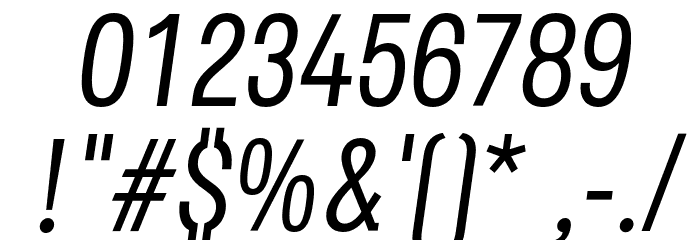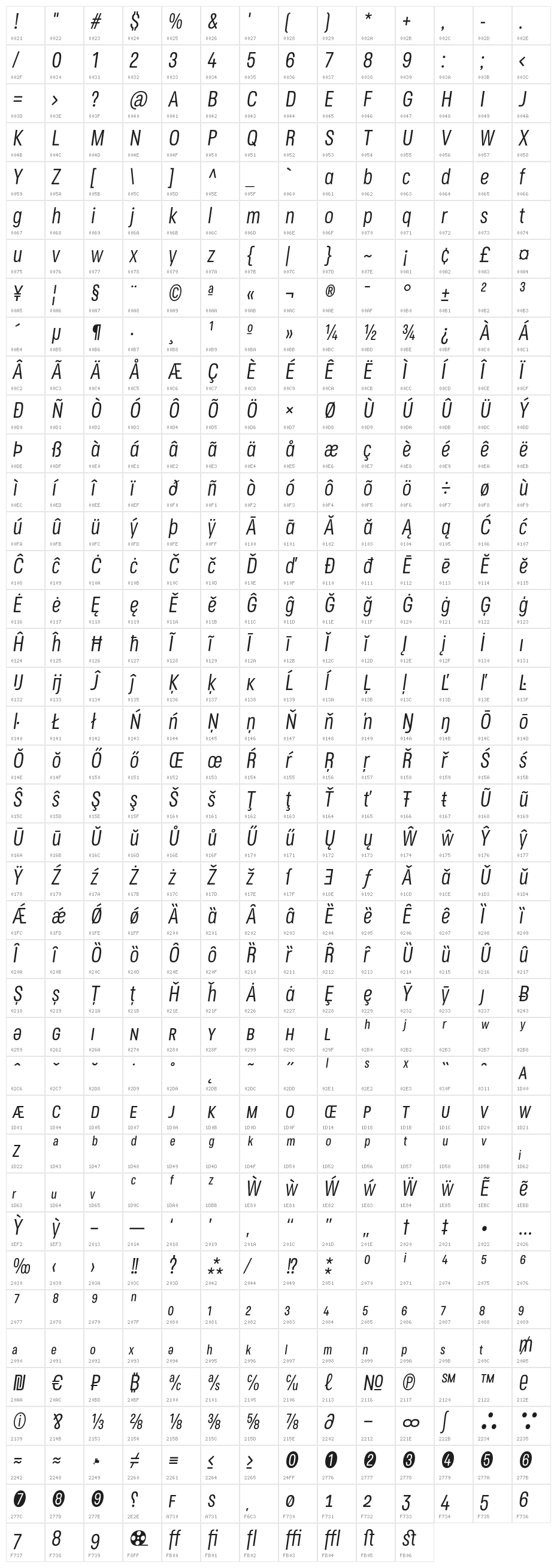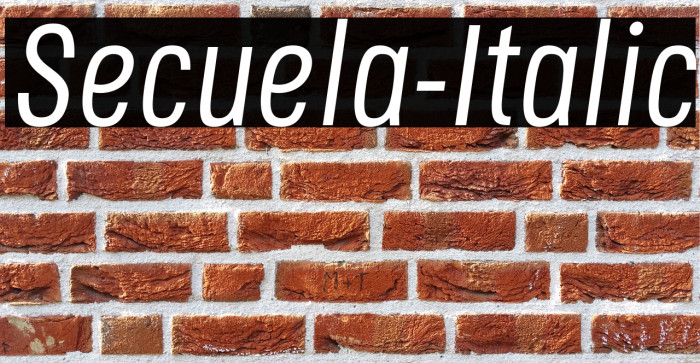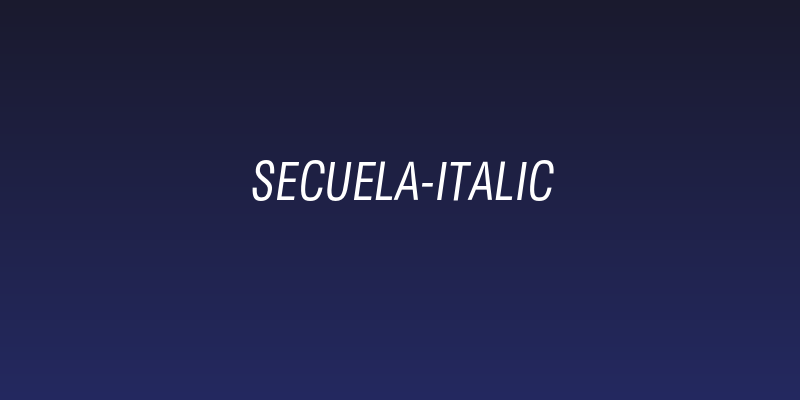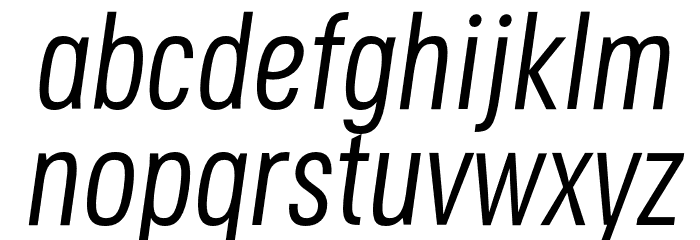
Secuela-Italic Font
Secuela-Italic Description
This font features a sleek and modern italic style, characterized by its clean lines and slightly condensed form. The letters are evenly spaced, providing a harmonious and readable appearance. The uppercase and lowercase characters maintain a consistent slant, enhancing the dynamic and forward-moving aesthetic. The numerals are clear and distinct, matching the overall style of the alphabet. Special characters are well-integrated, ensuring versatility in various design contexts. The font's design is suitable for both digital and print media, offering a professional yet approachable look.